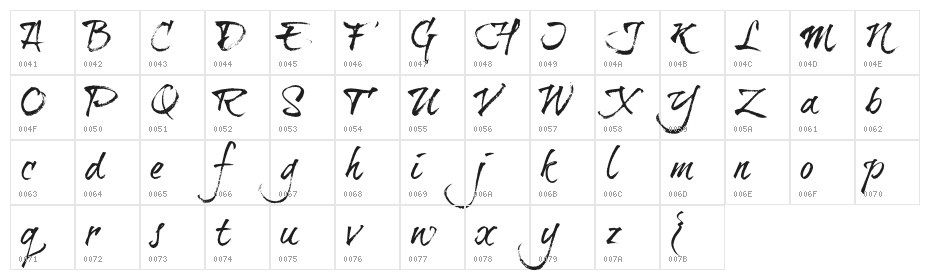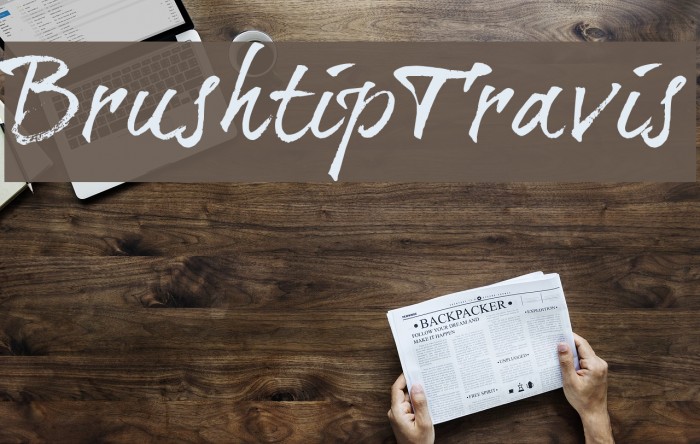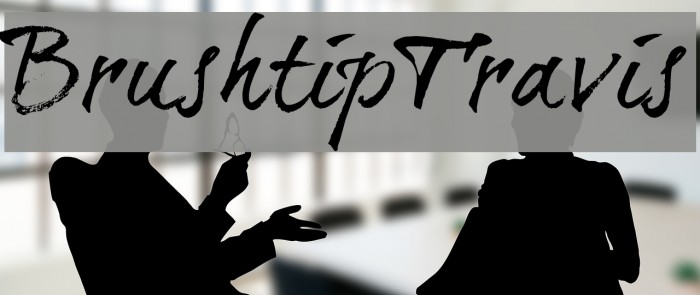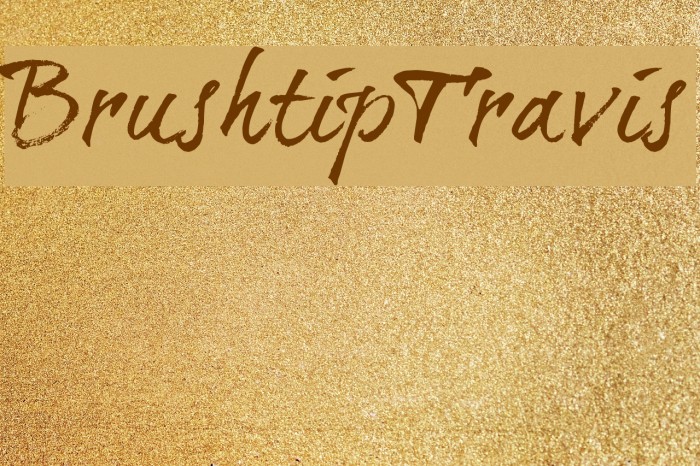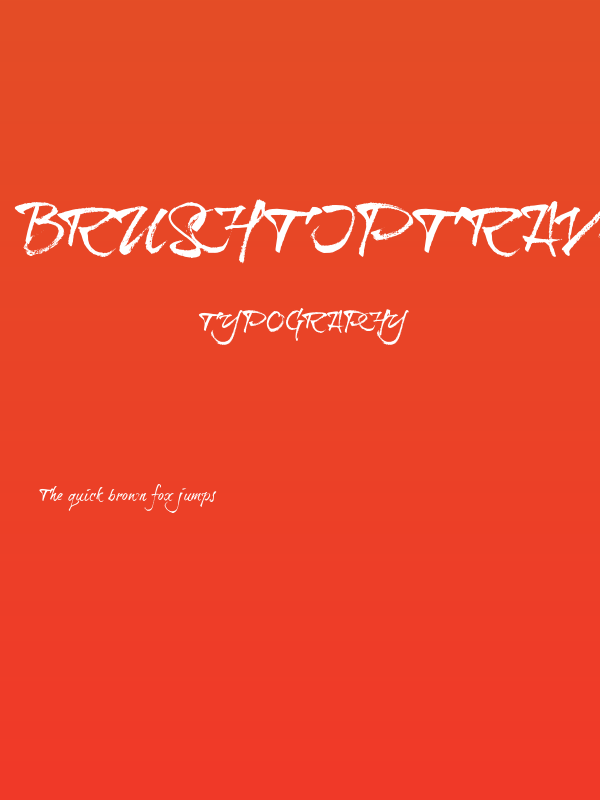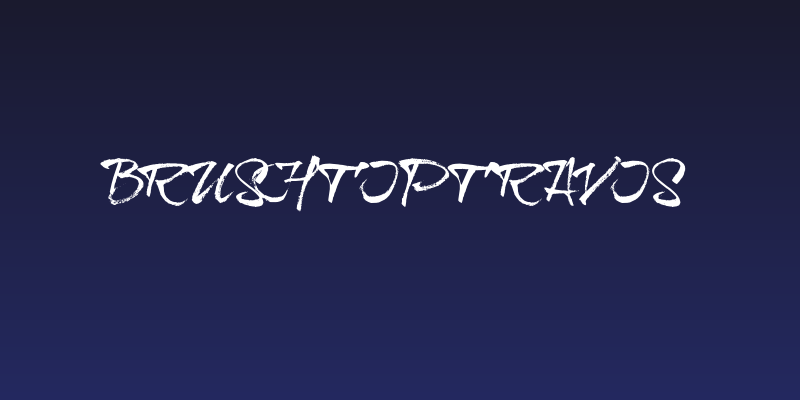
BrushtipTravis Font
BrushtipTravis Description
This font features a dynamic and expressive brush script style, characterized by its fluid and organic strokes. The letters exhibit a natural flow, with varying thickness that mimics the effect of a brush pen. The uppercase and lowercase letters are designed with a sense of movement and energy, creating a lively and informal appearance. The texture of the strokes adds a hand-crafted feel, making it suitable for projects that require a personal touch. The absence of special characters and numbers suggests a focus on artistic lettering rather than comprehensive typography.
| Proposed Projects | Ideal for branding, invitations, greeting cards, and artistic projects that require a personal and expressive touch. |